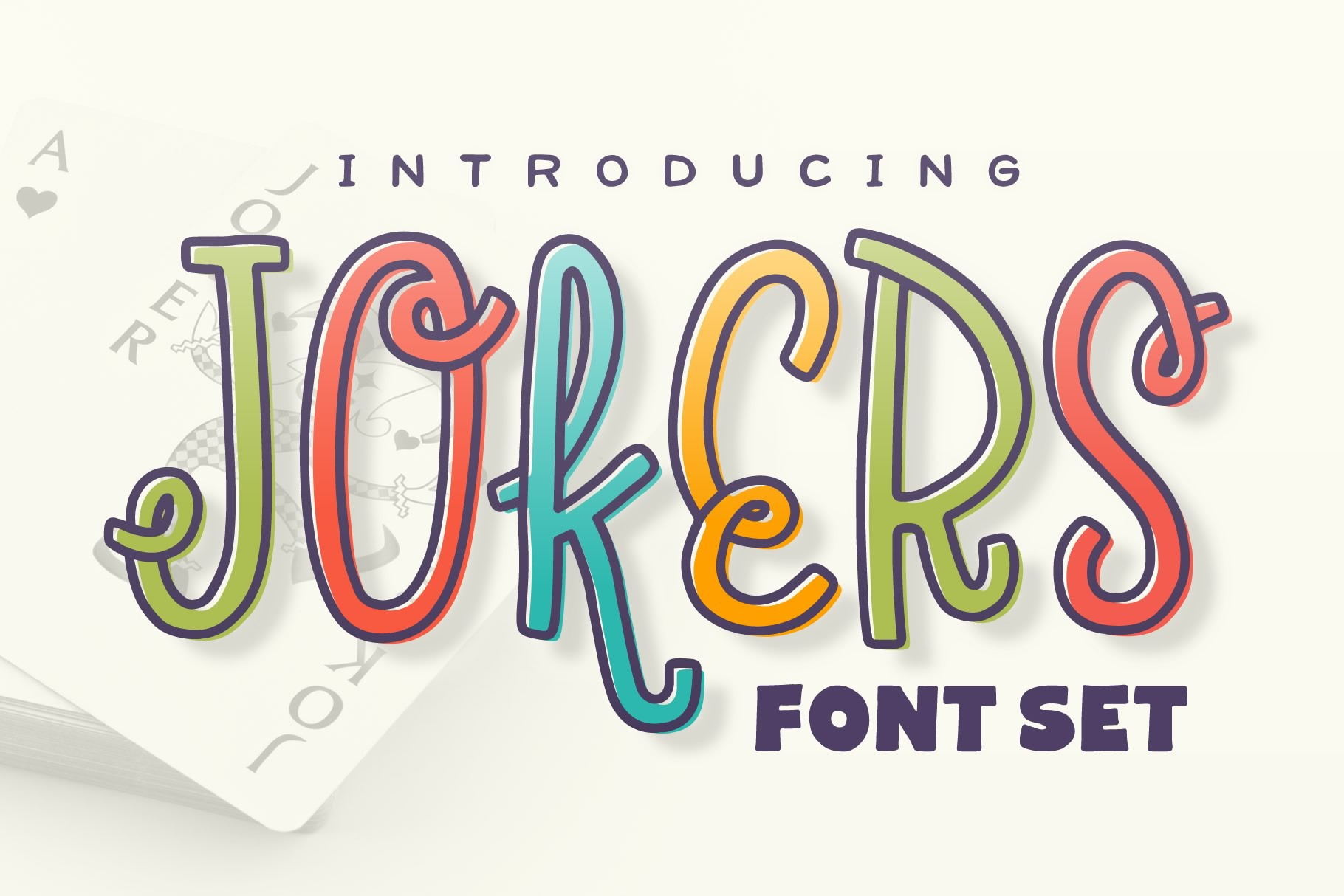
Jokers Font Set
Say hello to Jokers! A fun and creative font set that gives you tons of options to play around with. Jokers comes with solid and outline versions that can be used together or on their own. Also included is an all caps version and a set of lowercase alternate characters and ligatures.